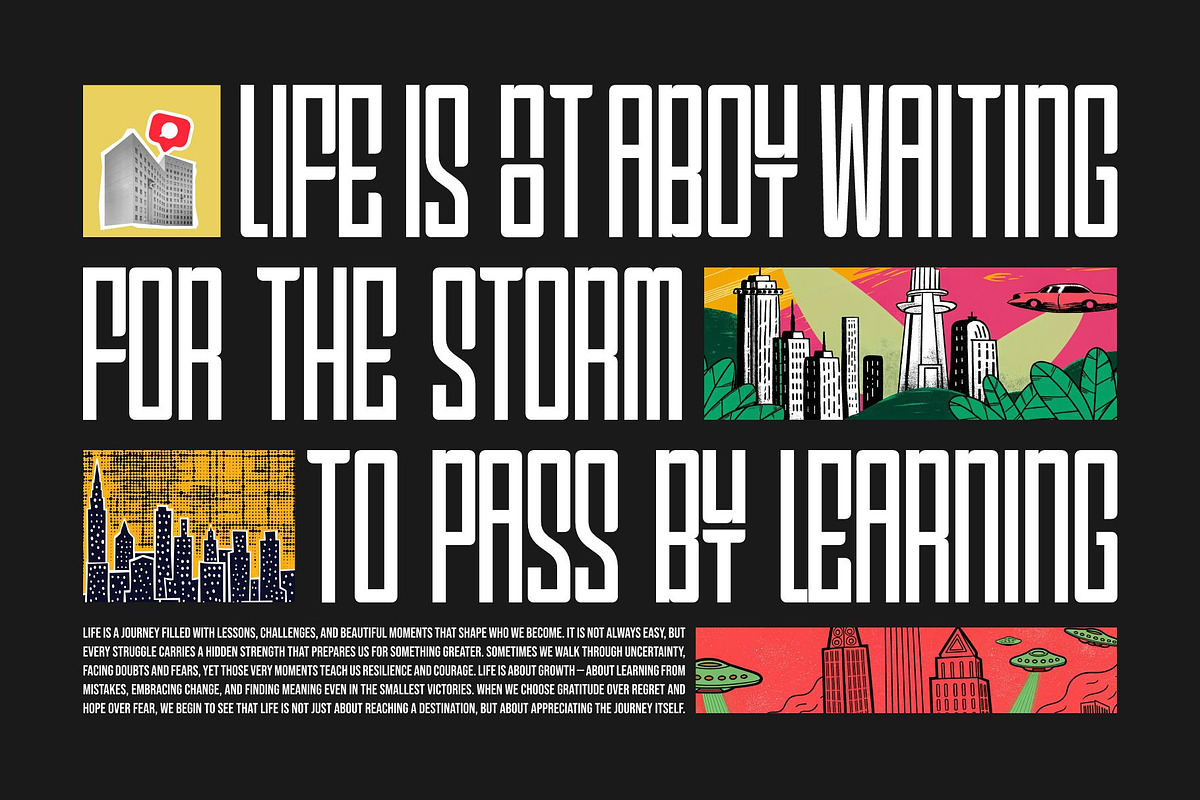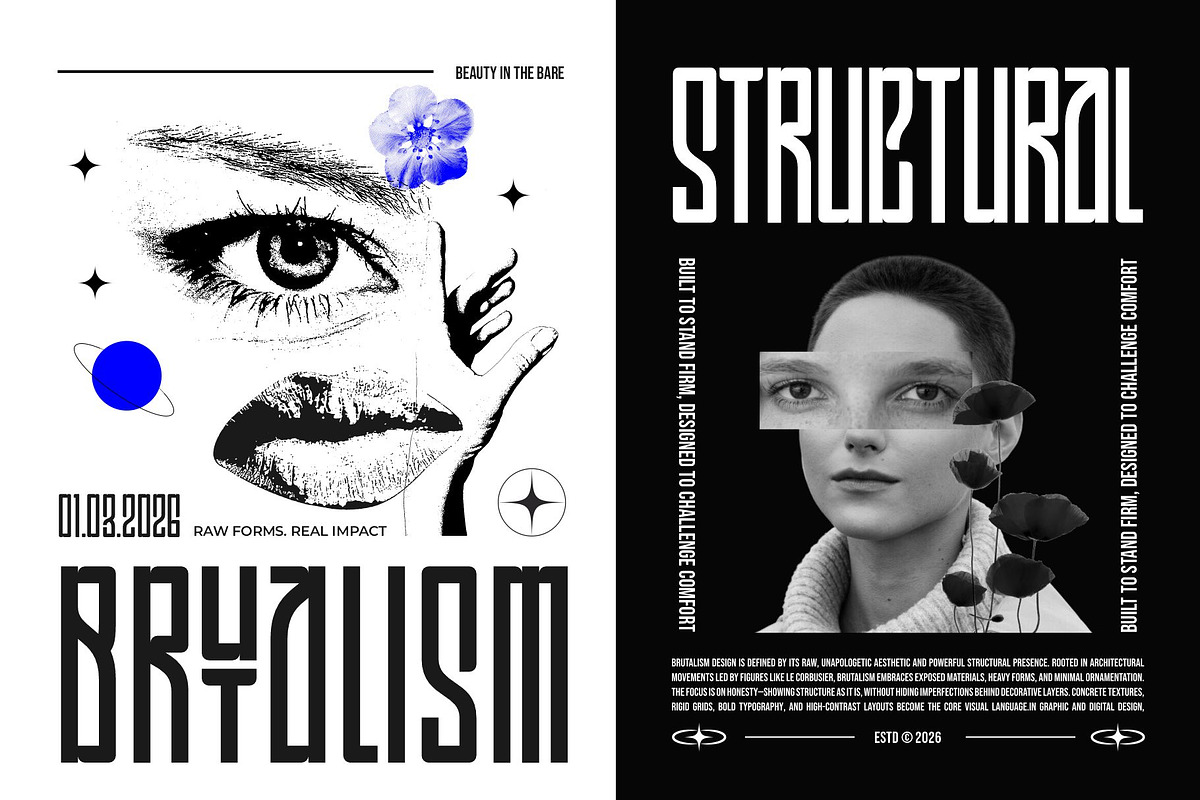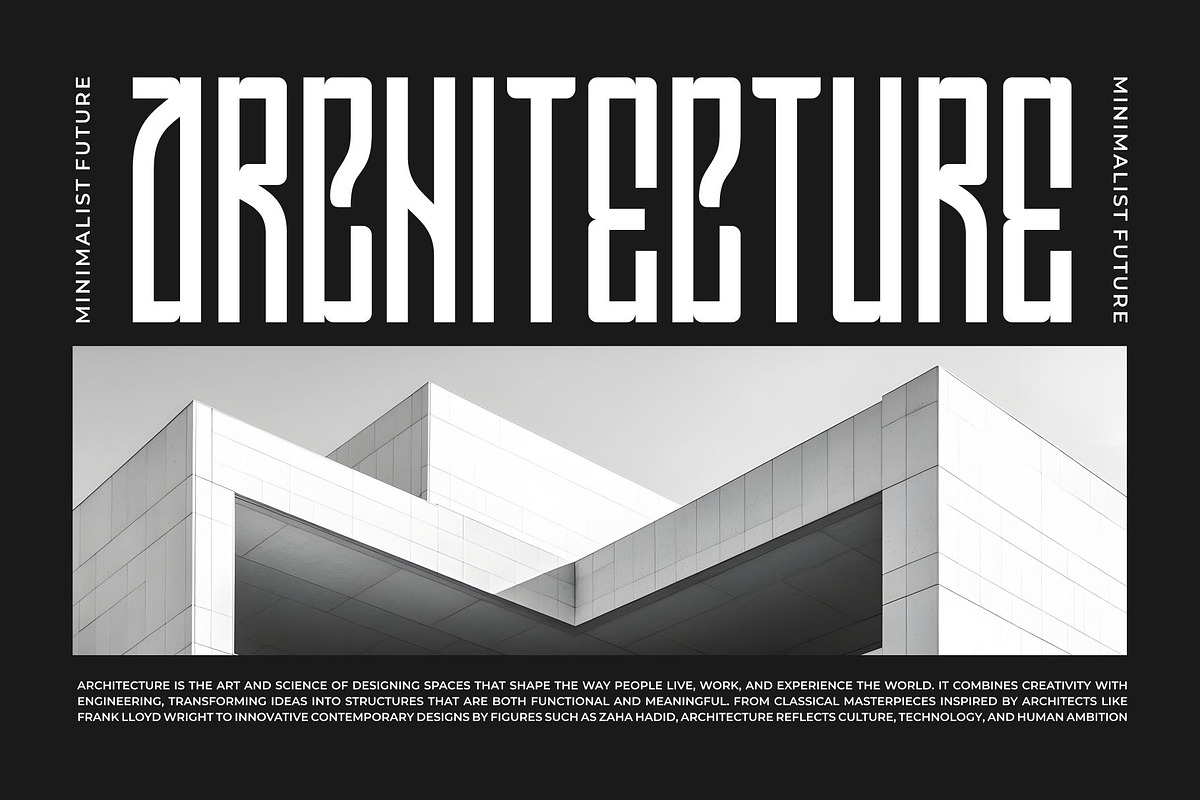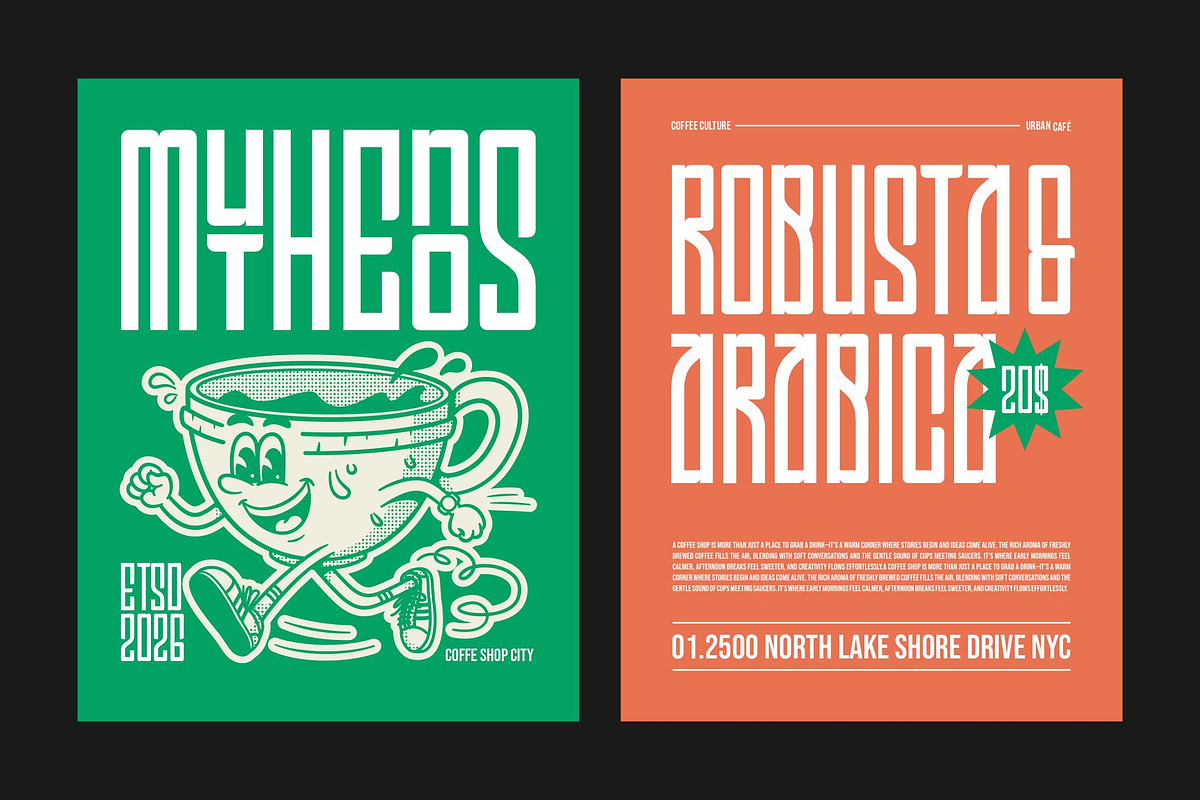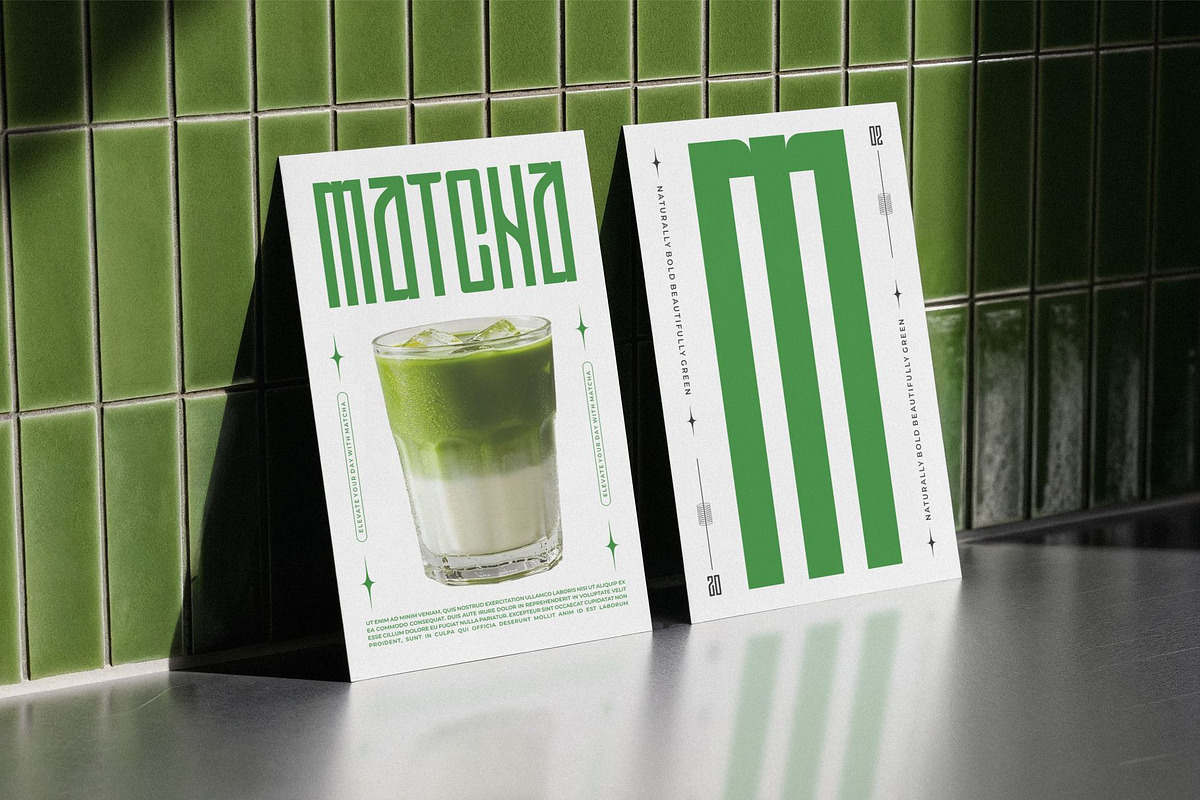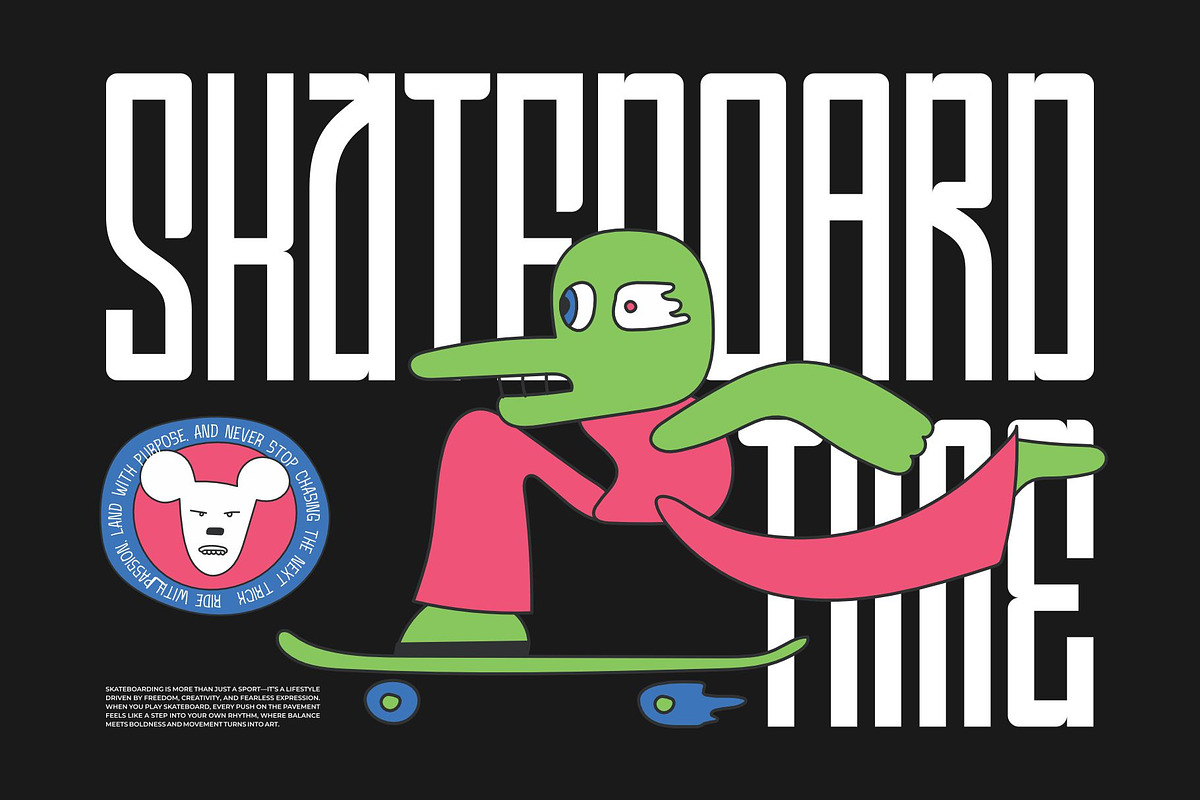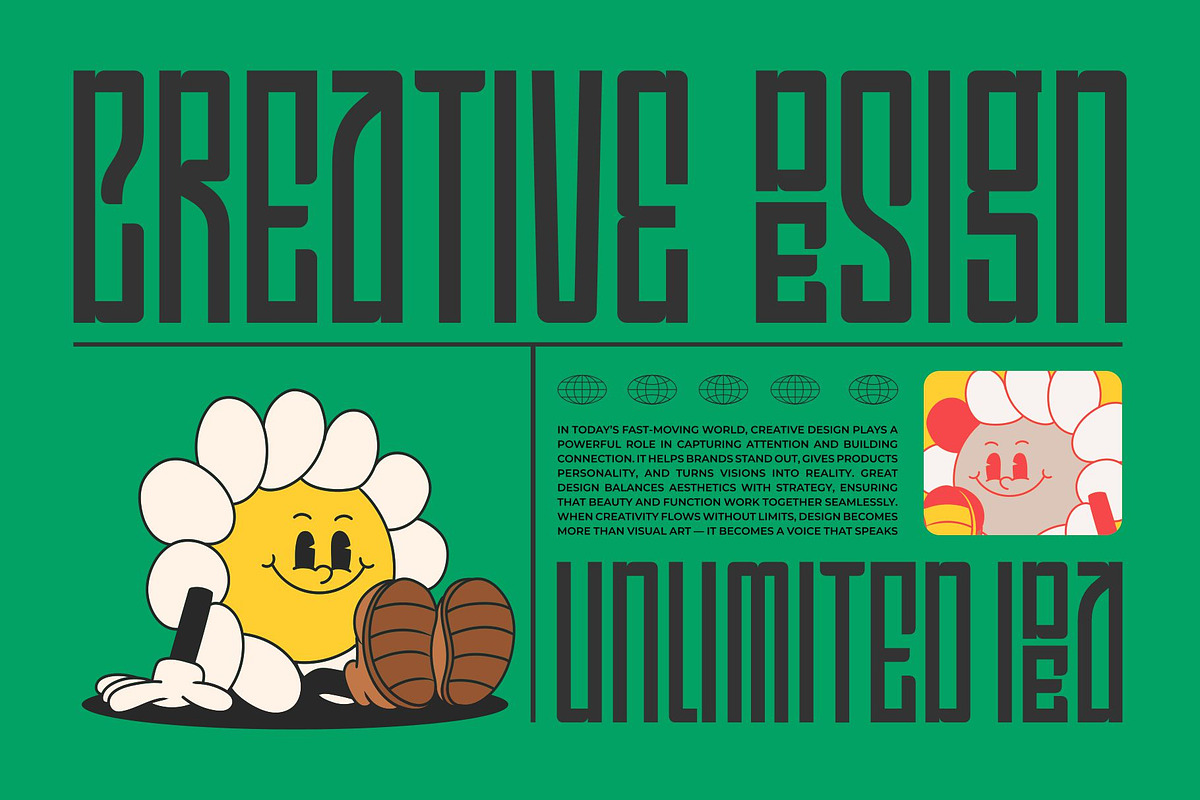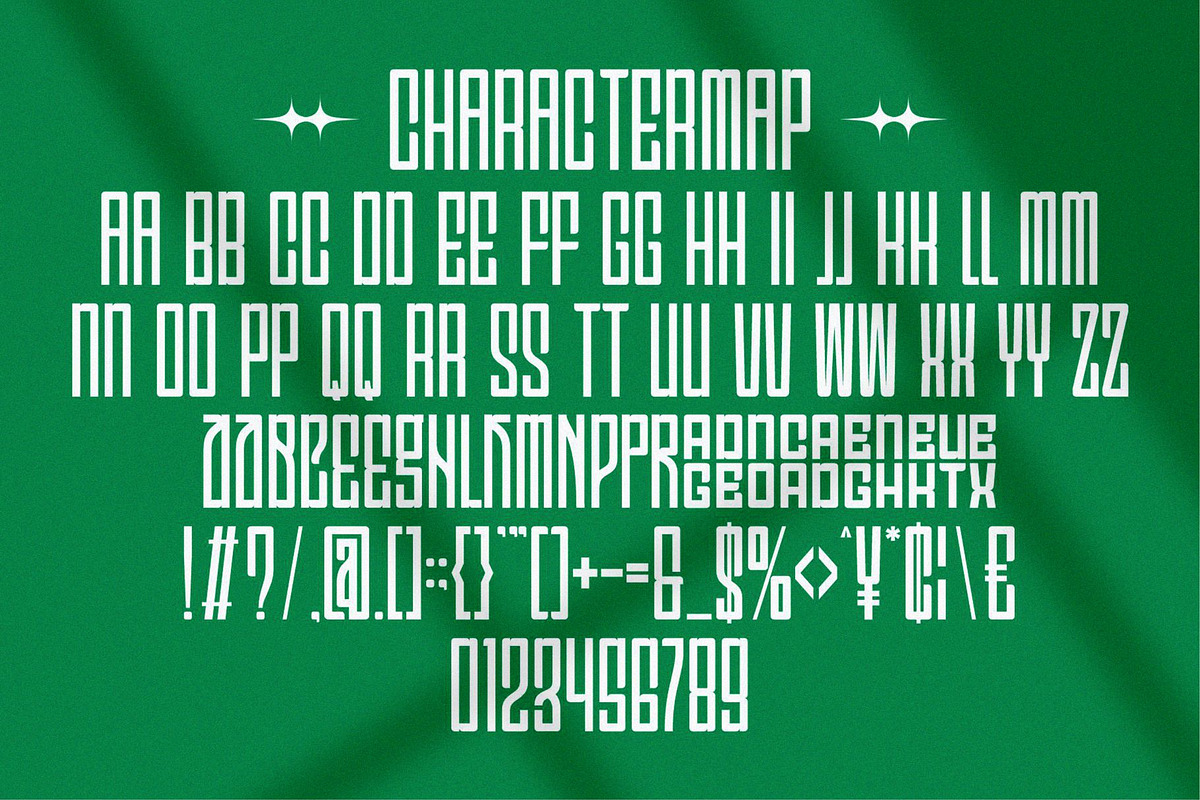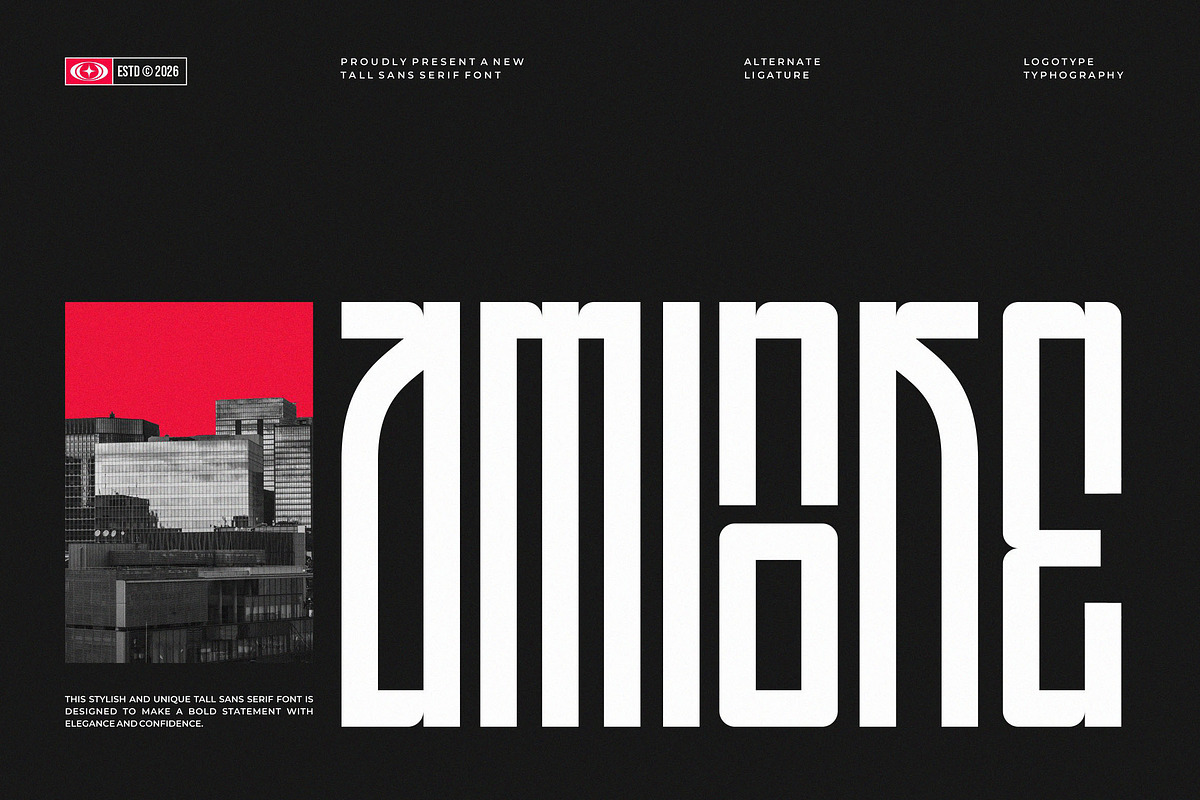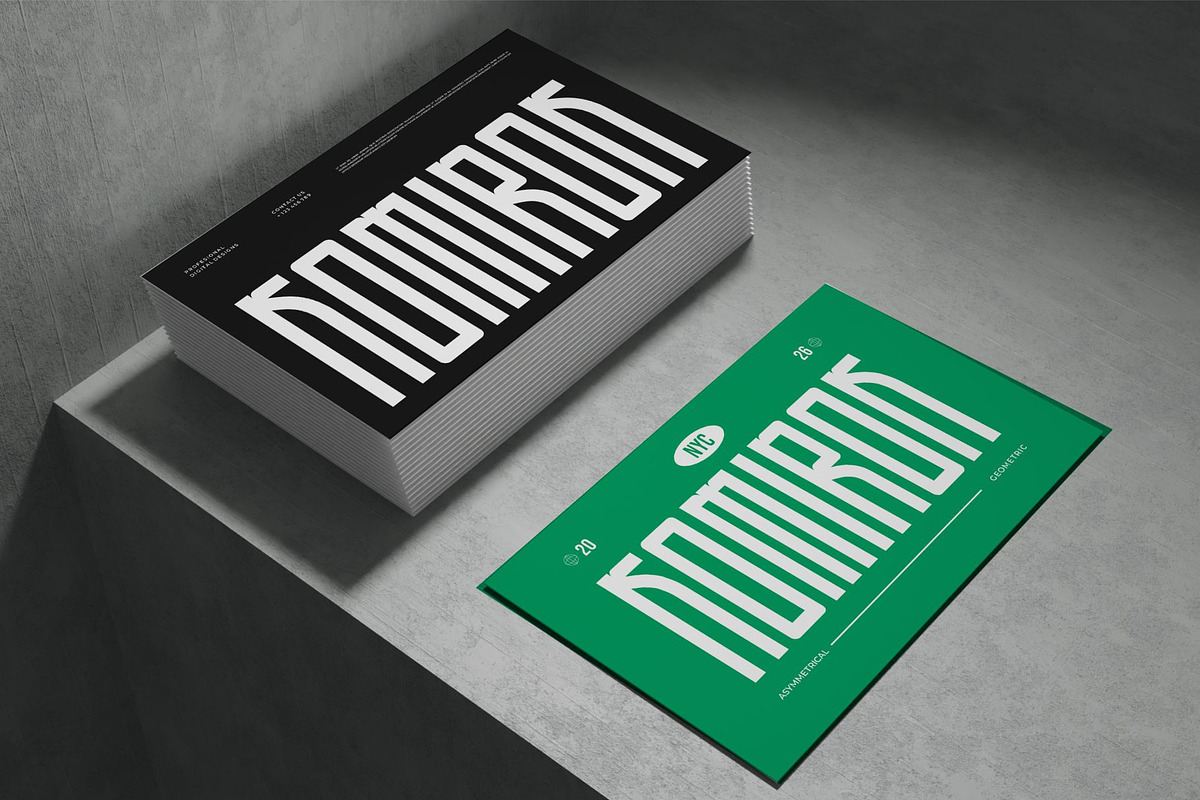
Aminoke || Modern Condensed Dosplay
Introducing Aminoke is tall sans serif Font modern, trendy and stylish. It has a unique character. It is perfect to be combined with invitation card designs, company logos, movie titles, movie names, business cards, book titles, brand names and various other designs.